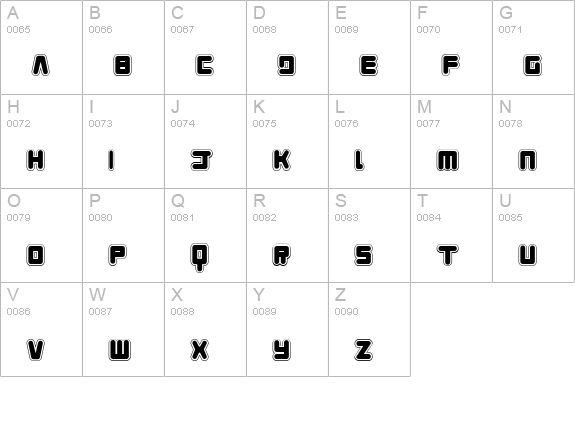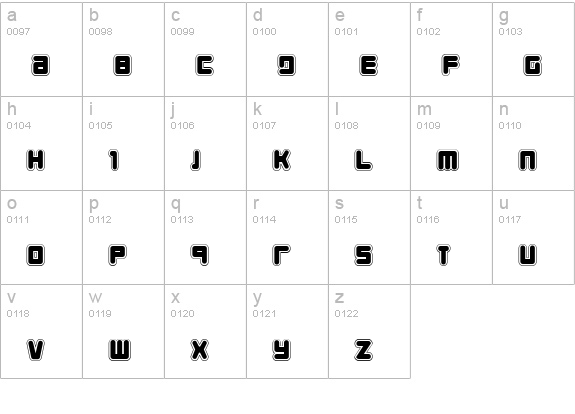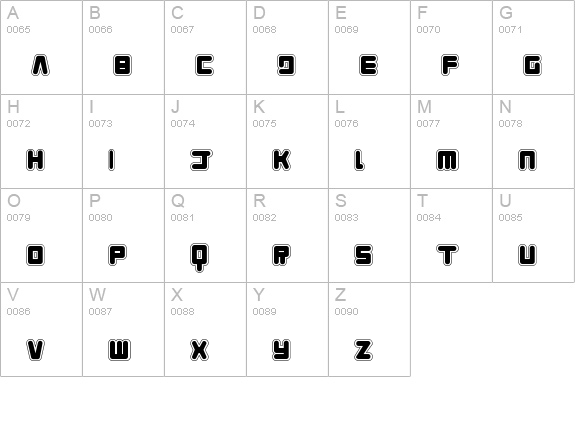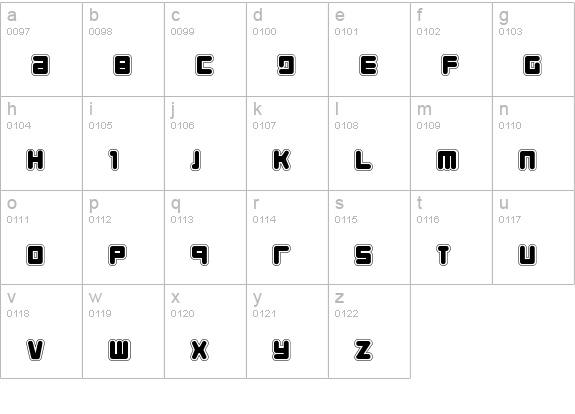
Young Techs Academy Font Details
Introducing Young Techs Academy font - a sleek and modern typeface designed for the tech-savvy generation. This font features clean lines and a futuristic vibe, making it perfect for digital projects, websites, and branding materials. With its youthful energy and innovative design, Young Techs Academy font is sure to make a bold statement. The best part? Young Techs Academy font is available for free download at FontsMarket.com. Now you can easily access this cutting-edge font and elevate your designs without breaking the bank. Don't miss out on this opportunity to add a touch of modern sophistication to your projects with Young Techs Academy font. Download it today and start creating!